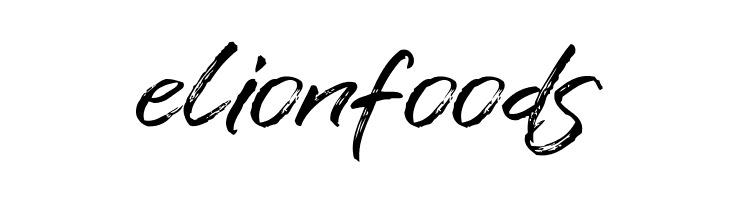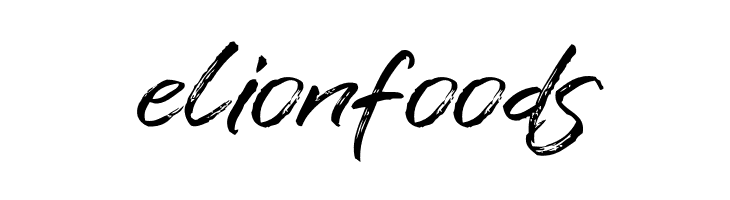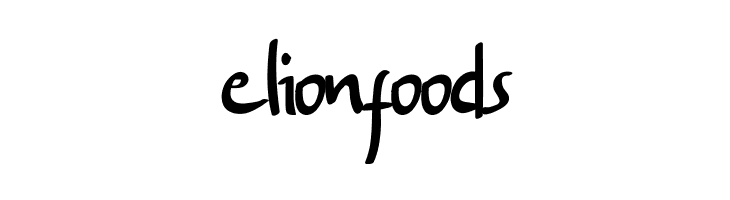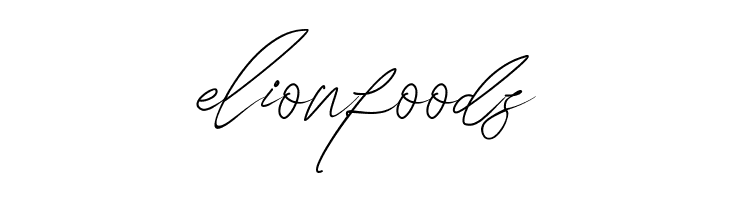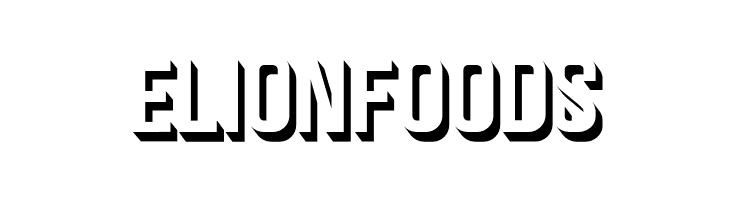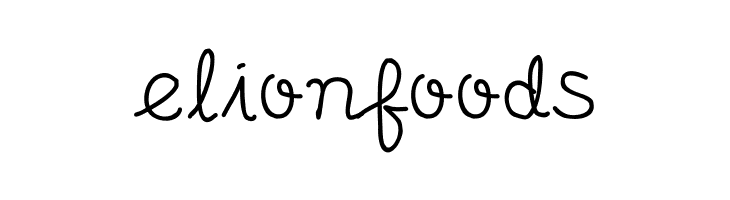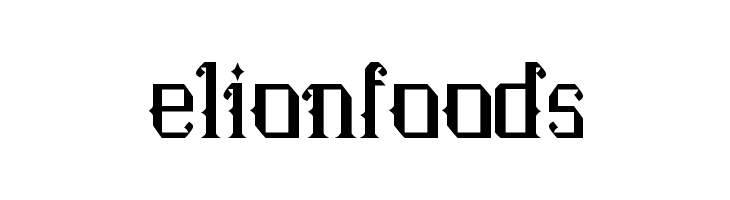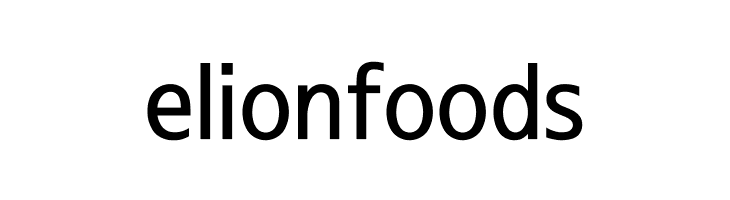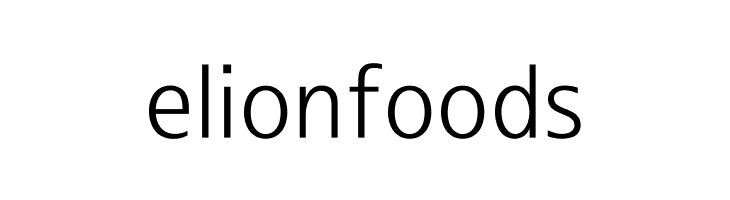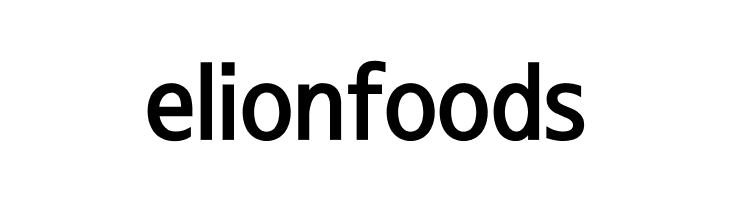
A delicate and elegant script font with graceful, flowing strokes.
A bold, geometric font with high contrast and angular shapes.
A dynamic, brush-style font with an expressive, handwritten look.
A dynamic, brush-style font with expressive and fluid strokes.
A playful, handwritten font with fluid strokes and a casual style.
A playful, hand-drawn font with curly, whimsical strokes.
A playful and whimsical font with bold, irregular shapes and dynamic strokes.
A bold, eclectic display typeface with modern and vintage influences.
A modern serif font with high contrast and sharp serifs, blending elegance with contemporary style.
A modern, geometric font with rounded edges and consistent stroke width.
A bold, three-dimensional font with a shadow effect, perfect for impactful designs.
A graceful script font with flowing, interconnected letters and high contrast strokes.
A modern, clean, and versatile font with excellent readability.
A classic serif font with bold, clear characters and strong readability.
A modern, sans-serif font with clean lines and balanced proportions.
A modern sans-serif font with clean lines and balanced proportions.
A modern serif font with balanced proportions and elegant strokes.
A modern, clean font with balanced characters and strong readability.
A modern sans-serif font with clean lines and medium contrast, perfect for versatile use.
A modern, sans-serif font with clean lines and medium contrast, ideal for readability.
A modern, clean sans-serif font with excellent legibility and versatility.
A modern, clean sans-serif font with uniform stroke width and excellent readability.
A bold, modern sans-serif font with clean lines and excellent readability.
A modern sans-serif font with clean, uniform strokes and excellent readability.
A modern, clean sans-serif font with balanced spacing and consistent stroke width.
A modern sans-serif font with clean, balanced letterforms and consistent stroke widths.
A bold, modern sans-serif typeface with excellent readability.
A modern sans-serif font with clean lines and balanced spacing.
A bold, geometric stencil-style font with a modern industrial feel.
A playful, casual handwritten font with flowing, whimsical strokes.
A bold, expressive handwritten font with fluid strokes and a playful style.